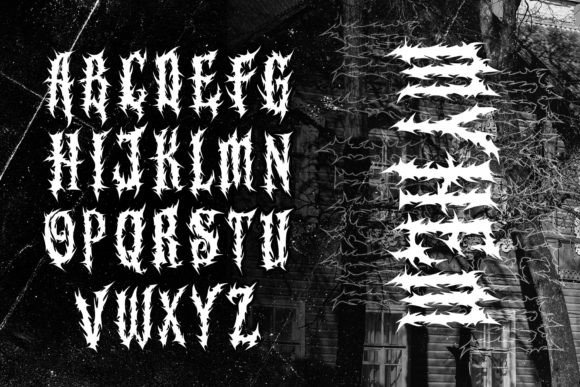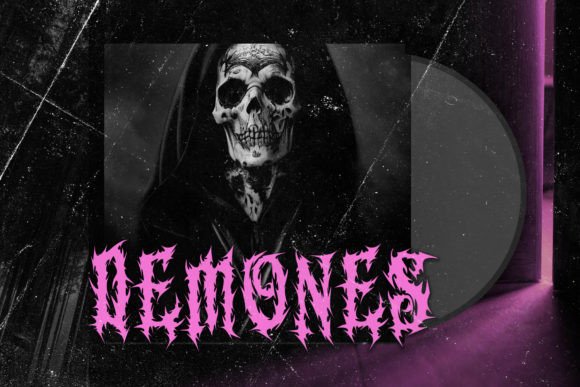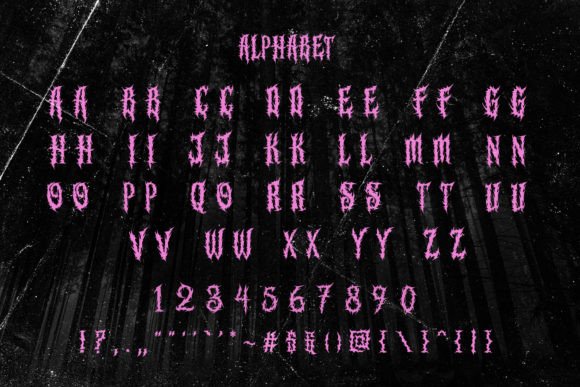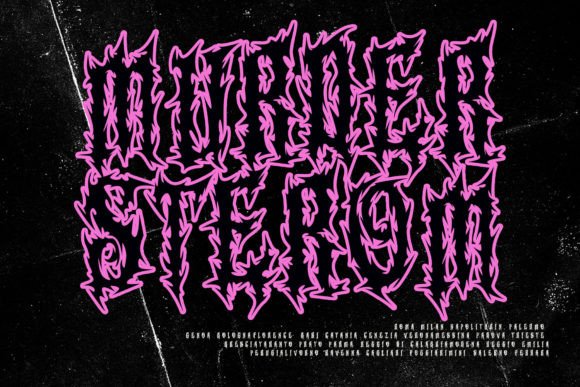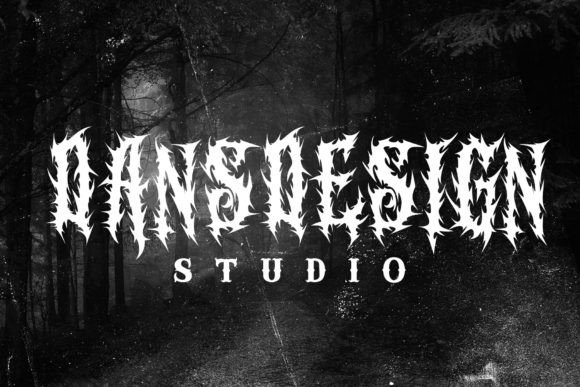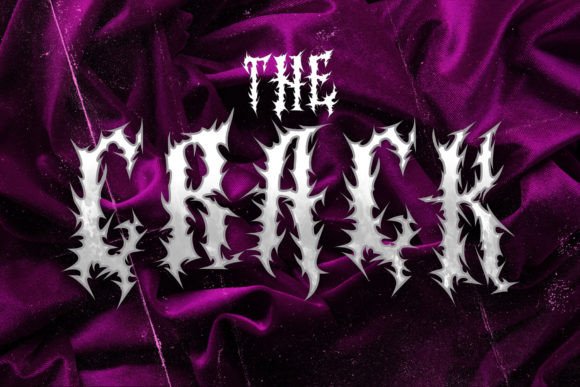
Introduction to Morgano Font Font
Fonts play a crucial role in design, and the Morgano Font font is a typeface that brings both character and versatility to any project. Whether you’re working on a branding project, a website, or a print design, the Morgano Font font offers a unique style that can elevate your work.
Morgano is a modern, distinct and highly detailed blackletter Metal Horror font.
It would be a great choice for music albums, posters, retro-urban designs, tattoo business branding, logos, vintage designs, and more .
Key Features of Morgano Font Font
Why Choose Morgano Font Font?
The Morgano Font font is more than just a typeface – it’s a design tool that helps you communicate your message with style and clarity. Its unique character set and versatile design make it suitable for a wide range of applications, from elegant invitations to bold headlines.
With its carefully crafted letterforms and balanced proportions, the Morgano Font font ensures readability and visual appeal across all mediums.
What makes Morgano Font font special?
The Morgano Font font stands out with its unique design, exceptional readability, and versatility across various design applications.